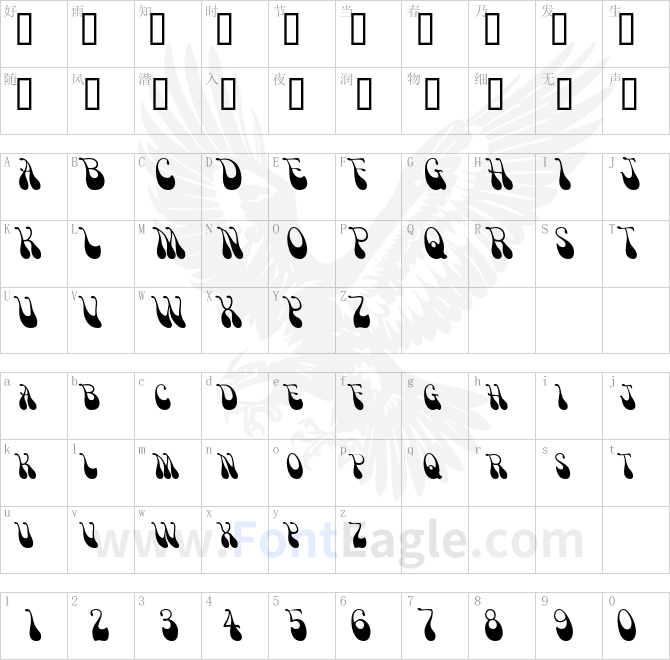
- Font name:Victor Moscoso
- Font Full Name:VictorMoscoso
- Postscript:VictorMoscoso
- Font Copyright:Victor Moscoso (version 2.01) by Keith Bates © 2006, 2008 www.k-type.com keith@k-type.com ” Based on the 1960s psychedelic poster lettering of Victor Moscoso.